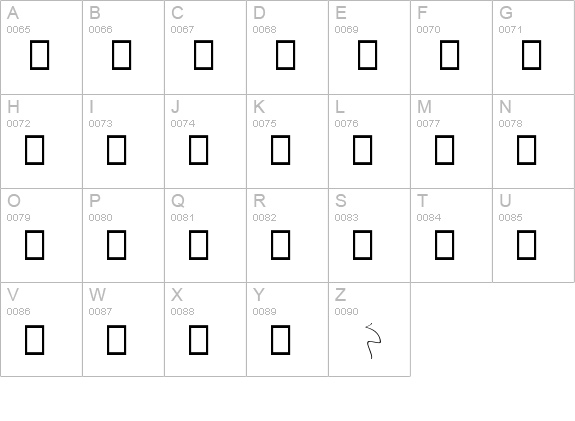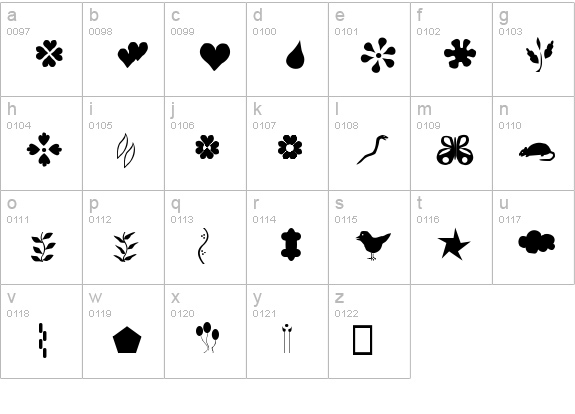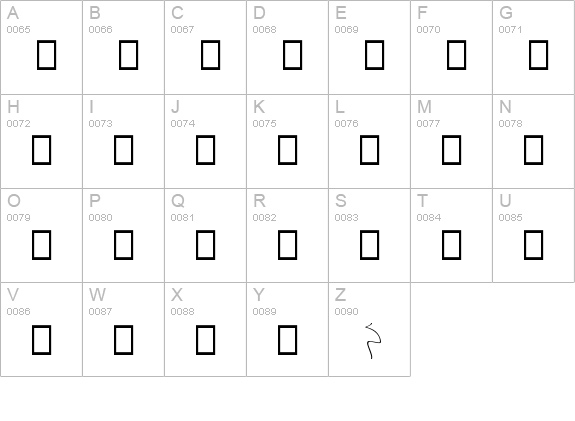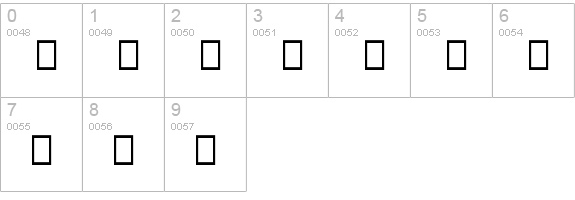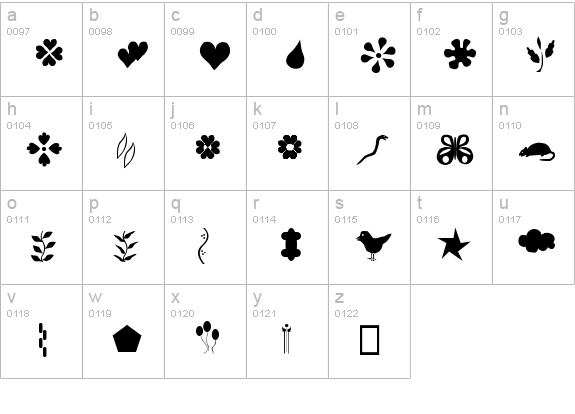
Fantas Second Font is a stunning and versatile typeface that exudes elegance and sophistication. With its unique and modern design, this font is perfect for a wide range of creative projects, from branding to editorial design. Its sleek lines and graceful curves make it a standout choice for anyone looking to add a touch of style to their work. What sets Fantas Second Font apart is not only its beauty, but also its accessibility. This font is available for free download at FontsMarket.com, making it easy for designers and creatives to access and use in their projects. Whether you're working on a personal passion project or a professional assignment, Fantas Second Font is sure to elevate your designs and leave a lasting impression. Don't miss out on this amazing opportunity to enhance your work with this exquisite font - download it for free today at FontsMarket.com!